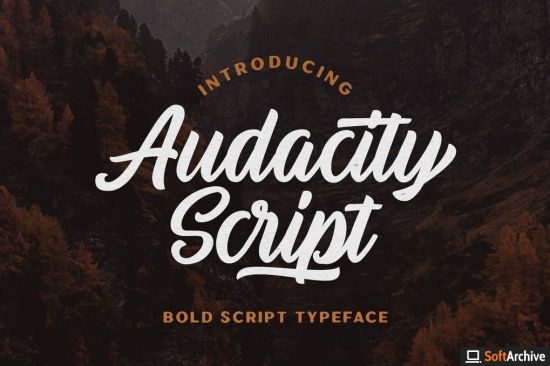
DesignOptimal - Audacity Script - Adventure Typeface Font
DesignOptimal.com - Audacity Script - Adventure Typeface Font
Audacity script a hand lettering script with adventure vibes. You can use this font for every project. Suitable for branding logo, hand lettering, or apparel design. This font is also support multilingual, number and symbol, alternates, swash, and underline. Also this font already PUA Encoded.